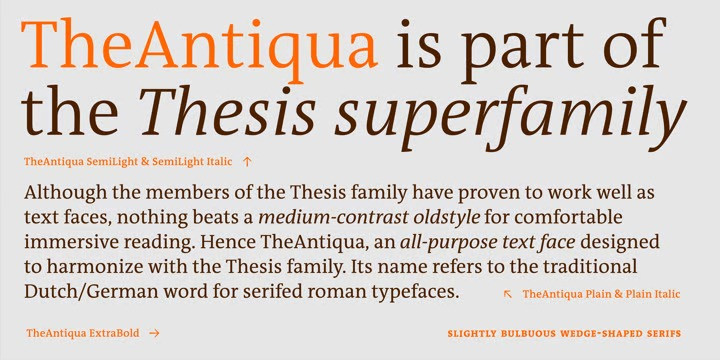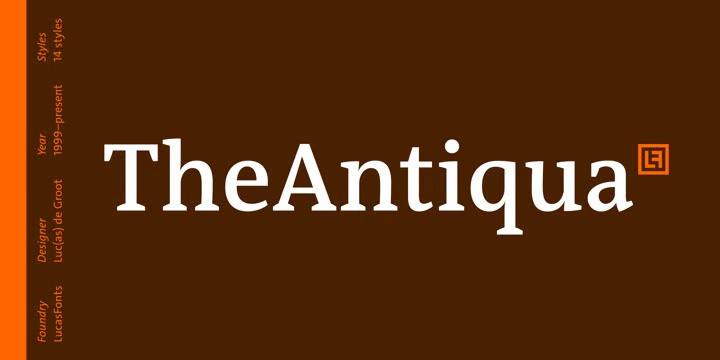
TheAntiqua Font Family
TheAntiqua Serif Font is a serif typeface family by LucasFonts. Coming from the background of creating a large amount of geometric icons, he set the goal of creating geometric typefaces in a variety of styles and consequently exploring new opportunities in typeface design. Although the members of the Thesis family have proven to work well as text faces, nothing beats a medium-contrast oldstyle for comfortable immersive reading. Hence TheAntiqua, an all-purpose text face whose name refers to the traditional Dutch/German word for oldstyle.